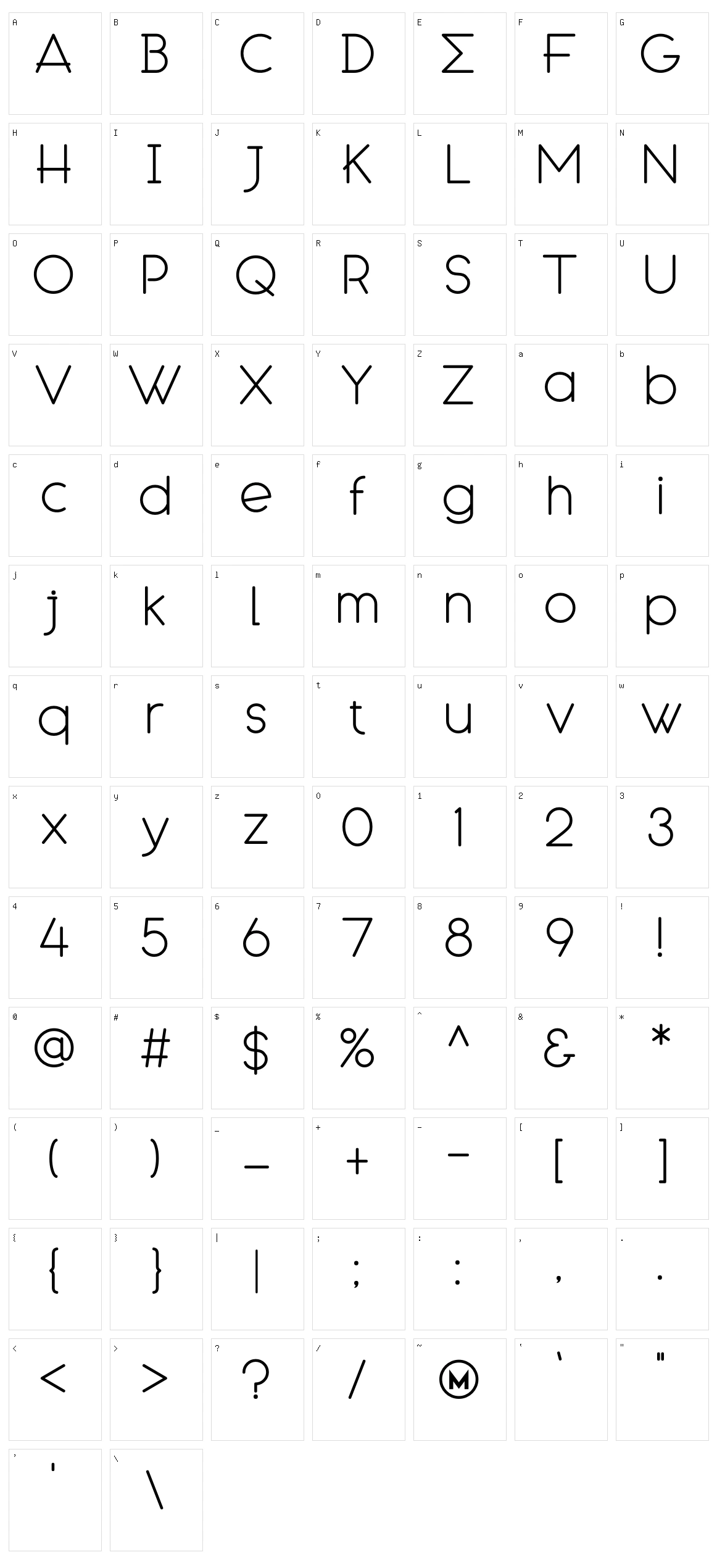
This Engcarnation font is intentionally made for fundraising to support an event with the same name.
Engcarnation, coming your way in May 2015, is a charity, arts and education event
held by students of English Department in the University of Indonesia.
As one of the students there, I want to support it by creating this font.
p.s.: don't like the uppercase "E" which looks like sigma? just ask me if you want a normal one:)